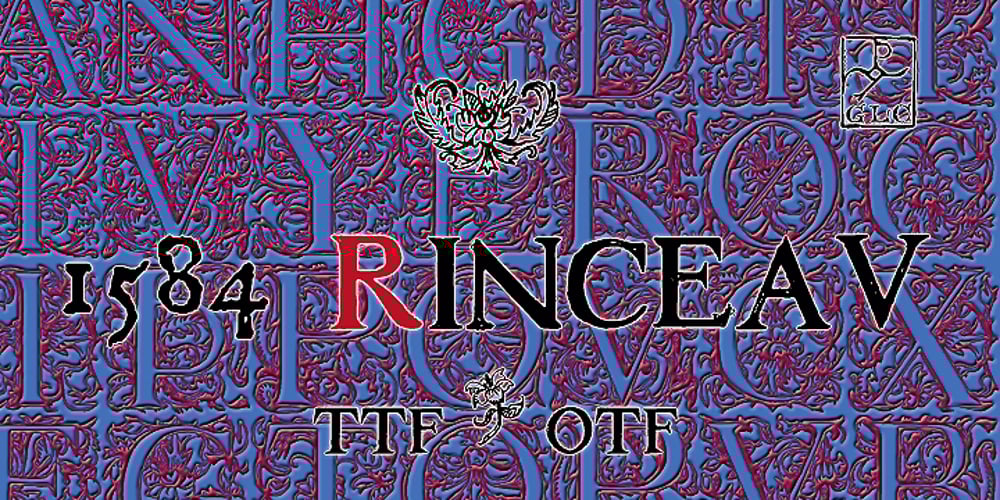
1584 Rinceau Font Family was designed by published by GLC. 1584 Rinceau contains 1 styles and family package options. This set of initial letters is an entirely original creation, inspired by French renaissance patterns used by Bordeaux printers circa 1580-1590. It contains two roman alphabets : the first of decorated letters, the second of single large capitals, all with Garamond style, and a few fleurons using the same background pattern style. Both containing Thorn, Eth, L slash and O slash. It can be used as variously as website titles, posters and flyers design, publishing texts looking like ancient ones, or greeting cards, all various sorts of presentations, as a very decorative, elegant and luxurious additional font… This font is conceived for enlargements, possibly strong ones, remaining very smart and very fine (especially decorated initials). This font may be used with all GLC Foundry blackletter fonts, but preferably with 1543 Humane Jenson, 1557 Italique, 1589 Humane Bordeaux, 1742 Civilite, 1776 Independence without any fear of anachronism.